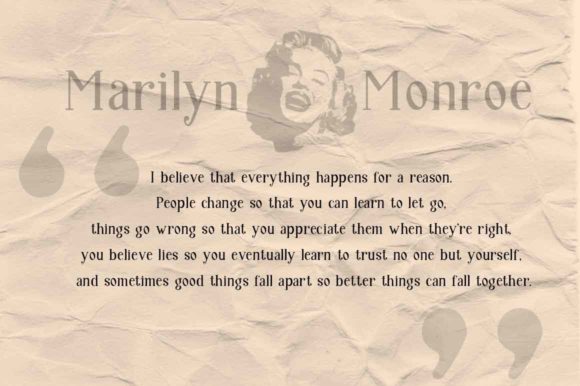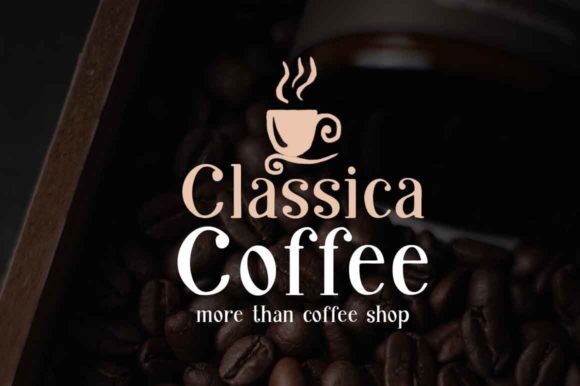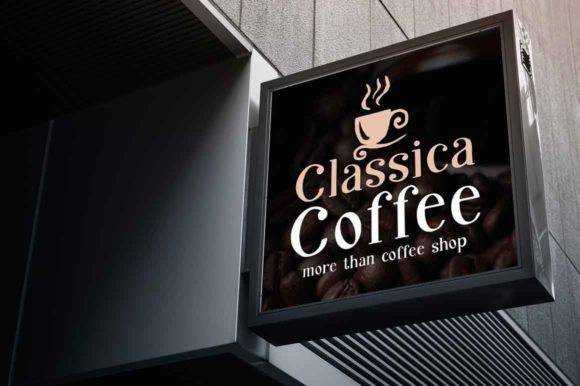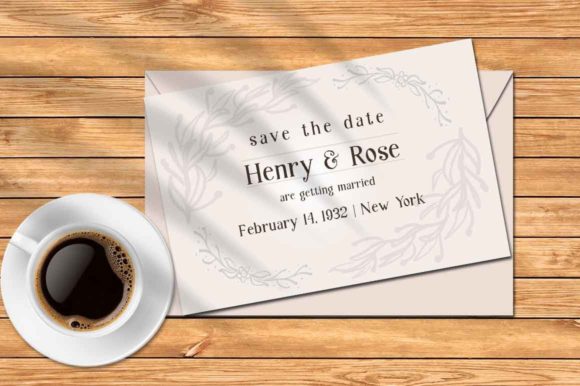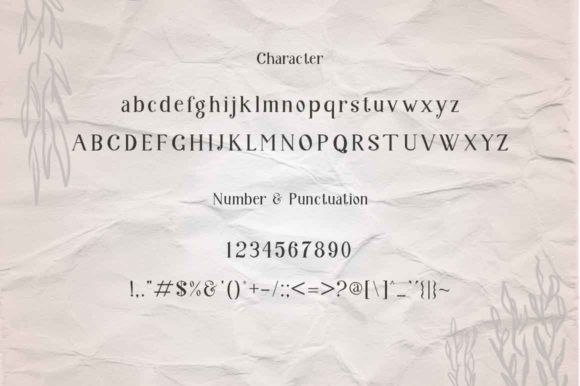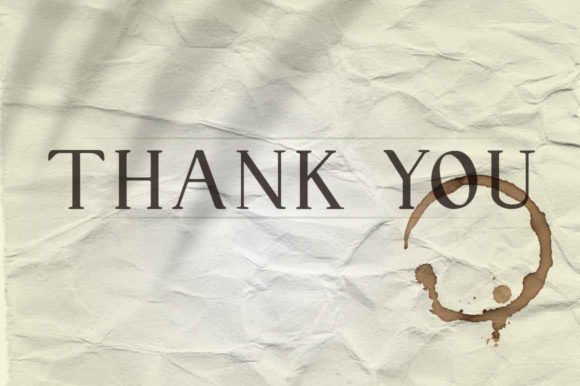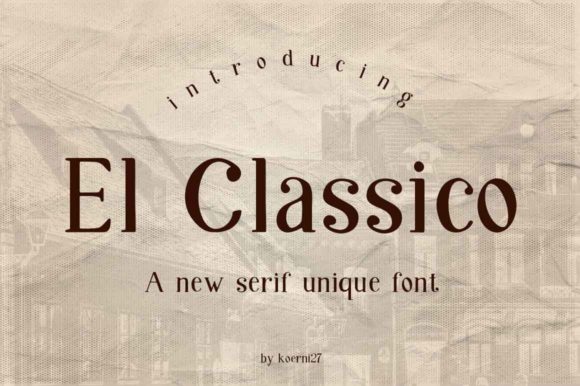
Discover the Timeless Elegance of El Classico Font
Are you a designer or crafter looking for a font that exudes classic style and vintage charm? Look no further than El Classico Font. This unique serif font is perfect for adding a touch of sophistication and elegance to your designs. In this article, we’ll explore the features and benefits of El Classico Font, and show you how to make the most of this versatile typeface.
What is El Classico Font?
El Classico Font is a carefully crafted serif font that draws inspiration from traditional typography. Its classic style makes it an ideal choice for designs that require a sense of history and nostalgia. Whether you’re working on an invitation, logo, quote, or any other project that demands a vintage vibe, El Classico Font is the perfect fit.
Key Features of El Classico Font
- Unique Serif Design: El Classico Font boasts a distinctive serif design that sets it apart from other fonts. Its serifs are carefully crafted to add a touch of elegance and sophistication to your designs.
- Classic Style: This font’s classic style makes it perfect for designs that require a vintage or retro look. From wedding invitations to logos and branding, El Classico Font is sure to impress.
- Versatile: El Classico Font is incredibly versatile, making it suitable for a wide range of design applications. Use it for body text, headings, or even as a display font to add a touch of drama to your designs.
- Easily Readable: Despite its ornate serifs, El Classico Font is surprisingly easy to read, making it perfect for use in body text or longer passages.
Use Cases for El Classico Font
So, where can you use El Classico Font? The possibilities are endless! Here are a few ideas to get you started:
- Wedding Invitations: Add a touch of elegance and sophistication to your wedding invitations with El Classico Font.
- Logos and Branding: Use El Classico Font to create a unique and memorable logo for your business or brand.
- Quotes and Posters: El Classico Font is perfect for creating eye-catching quotes and posters that demand attention.
- Packaging Design: Add a touch of vintage charm to your packaging design with El Classico Font.
Tips for Using El Classico Font
To get the most out of El Classico Font, here are a few tips to keep in mind:
- Pair with a Sans-Serif Font: Pair El Classico Font with a sans-serif font to create a striking contrast that adds visual interest to your designs.
- Experiment with Font Sizes: Don’t be afraid to experiment with different font sizes to create visual hierarchy and add emphasis to your designs.
- Use it Sparingly: While El Classico Font is beautiful, it’s best used sparingly. Use it for headings or titles, and a simpler font for body text.
| Font Name | El Classico Font |
| Author | koerni27 |
In conclusion, El Classico Font is a unique and versatile serif font that’s perfect for designers and crafters looking to add a touch of classic style and vintage charm to their designs. With its elegant serifs, classic style, and ease of readability, El Classico Font is sure to become a staple in your font collection. So why wait? Download El Classico Font today and start creating stunning designs that exude timeless elegance!